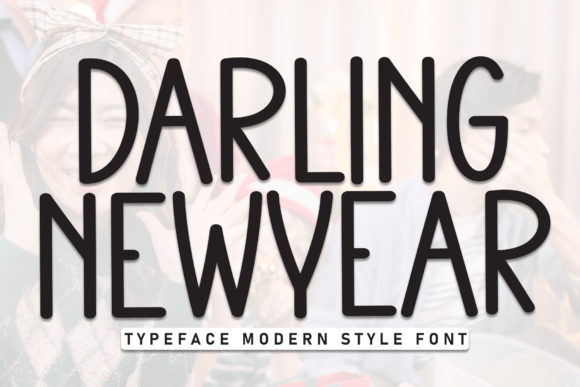
Darling Newyear Font: The Perfect Choice for Your Creative Projects
Are you looking for a font that can add a touch of elegance and playfulness to your creative projects? Look no further than the Darling Newyear Font. This charming and approachable handwritten display font is truly a delight to behold, making it perfect for a variety of applications, from wedding invitations to greeting cards.
What Makes Darling Newyear Font So Special?
Darling Newyear Font is a unique and versatile font that can add a touch of sophistication and whimsy to any project. Its charming elegance lends itself perfectly to designing wedding invitations, greeting cards, and other creative endeavors that call for an added splash of fun and whim. Whether you’re a designer, artist, or DIY enthusiast, this font is sure to become a favorite in your collection.
Key Features of Darling Newyear Font
- Handwritten Display Font: Darling Newyear Font is a handwritten display font that features a unique and playful style.
- Charming Elegance: The font’s charming elegance makes it perfect for designing wedding invitations, greeting cards, and other creative projects.
- Approachable and Whimsical: The font’s approachable and whimsical style makes it perfect for adding a touch of fun and playfulness to any project.
- Versatile: Darling Newyear Font can be used for a variety of applications, from digital projects to print materials.
Uses for Darling Newyear Font
Darling Newyear Font is perfect for a variety of creative projects, including:
- Wedding Invitations: The font’s charming elegance makes it perfect for designing beautiful and elegant wedding invitations.
- Greeting Cards: The font’s playful and whimsical style makes it perfect for creating fun and unique greeting cards.
- Digital Projects: Darling Newyear Font can be used for a variety of digital projects, including social media graphics, blog posts, and more.
- Print Materials: The font can be used for a variety of print materials, including brochures, flyers, and more.
Tips for Using Darling Newyear Font
Here are a few tips for using Darling Newyear Font in your creative projects:
- Pair with Other Fonts: Darling Newyear Font can be paired with other fonts to create a unique and interesting look.
- Use for Headings: The font’s playful and whimsical style makes it perfect for use as headings in your creative projects.
- Experiment with Colors: The font’s elegant style makes it perfect for use with a variety of colors and textures.
Why Choose Darling Newyear Font?
There are many reasons to choose Darling Newyear Font for your creative projects. Here are a few:
- Unique Style: The font’s unique and playful style makes it perfect for adding a touch of elegance and whimsy to any project.
- Versatility: Darling Newyear Font can be used for a variety of applications, from digital projects to print materials.
In conclusion, Darling Newyear Font is a charming and approachable handwritten display font that is perfect for a variety of creative projects. Its charming elegance and playful style make it perfect for designing wedding invitations, greeting cards, and other creative endeavors that call for an added splash of fun and whim. With its versatility, ease of use, and unique style, Darling Newyear Font is sure to become a favorite in your collection.
- What is Darling Newyear Font? Darling Newyear Font is a charming and approachable handwritten display font that is perfect for a variety of creative projects.
- What makes Darling Newyear Font so special? The font’s charming elegance and playful style make it perfect for designing wedding invitations, greeting cards, and other creative endeavors that call for an added splash of fun and whim.
Darling Newyear Font: The Perfect Choice for Your Creative Projects
If you’re looking for a font that can add a touch of elegance and playfulness to your creative projects, look no further than Darling Newyear Font. With its charming elegance, playful style, and versatility, Darling Newyear Font is the perfect choice for a variety of applications, from wedding invitations to greeting cards.